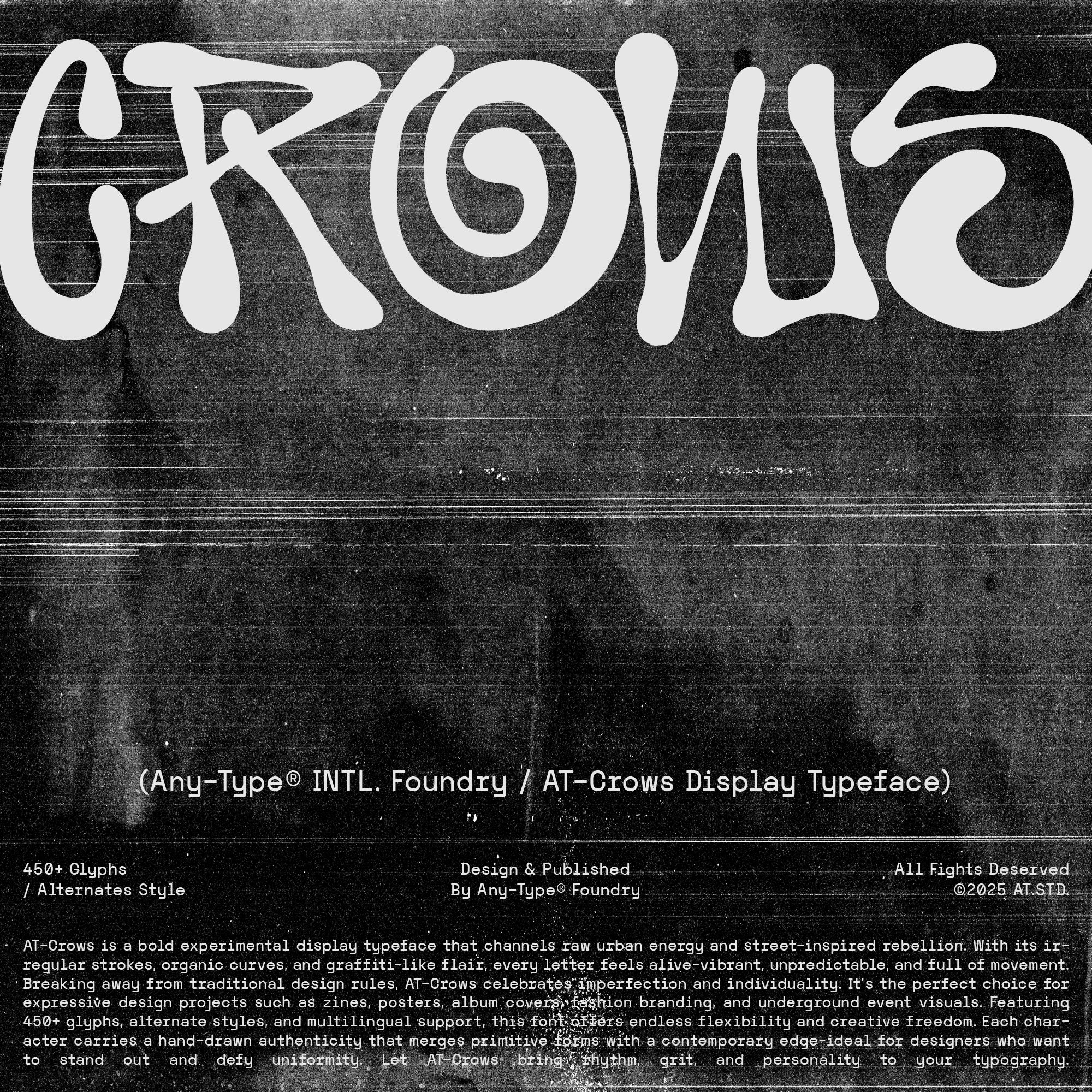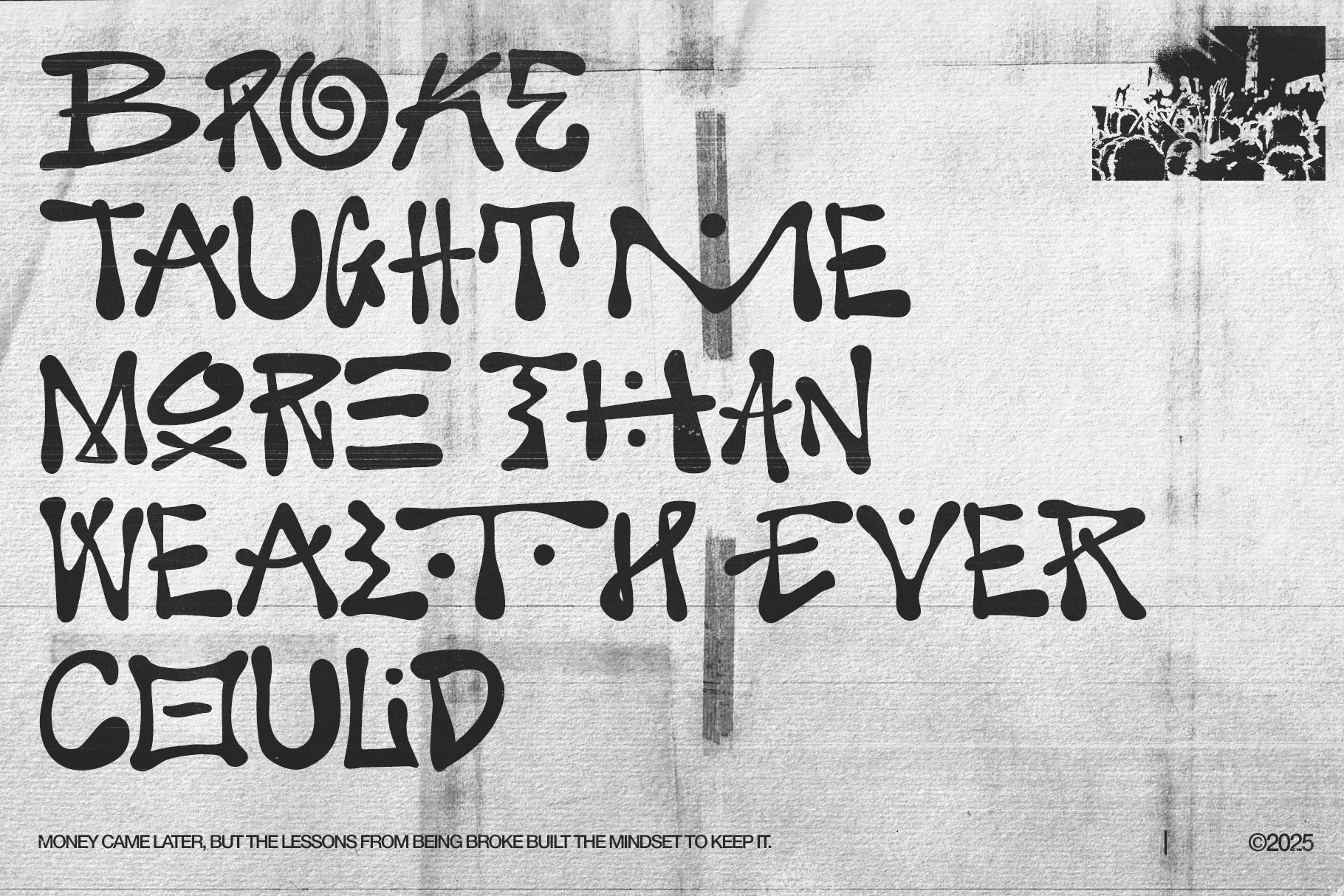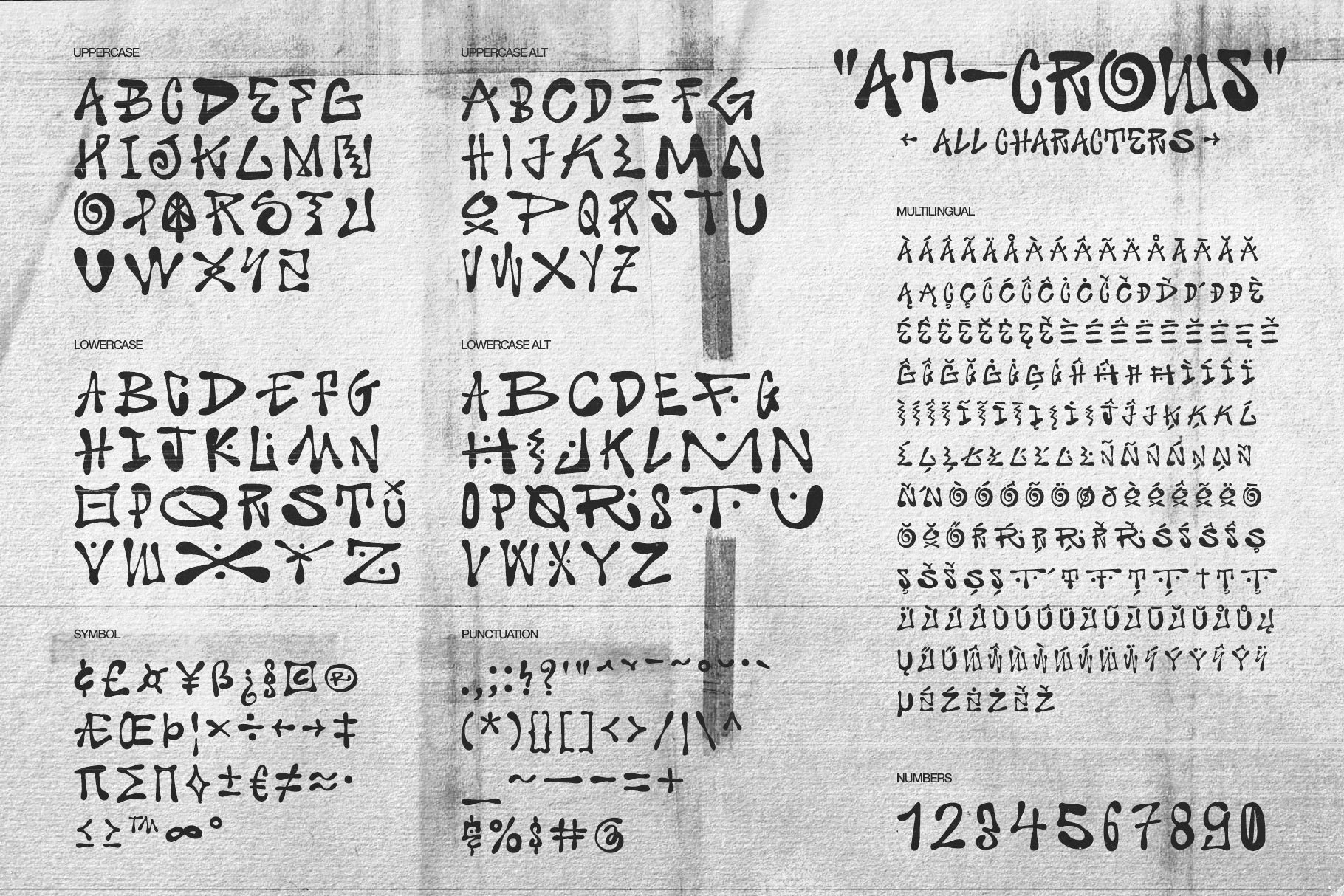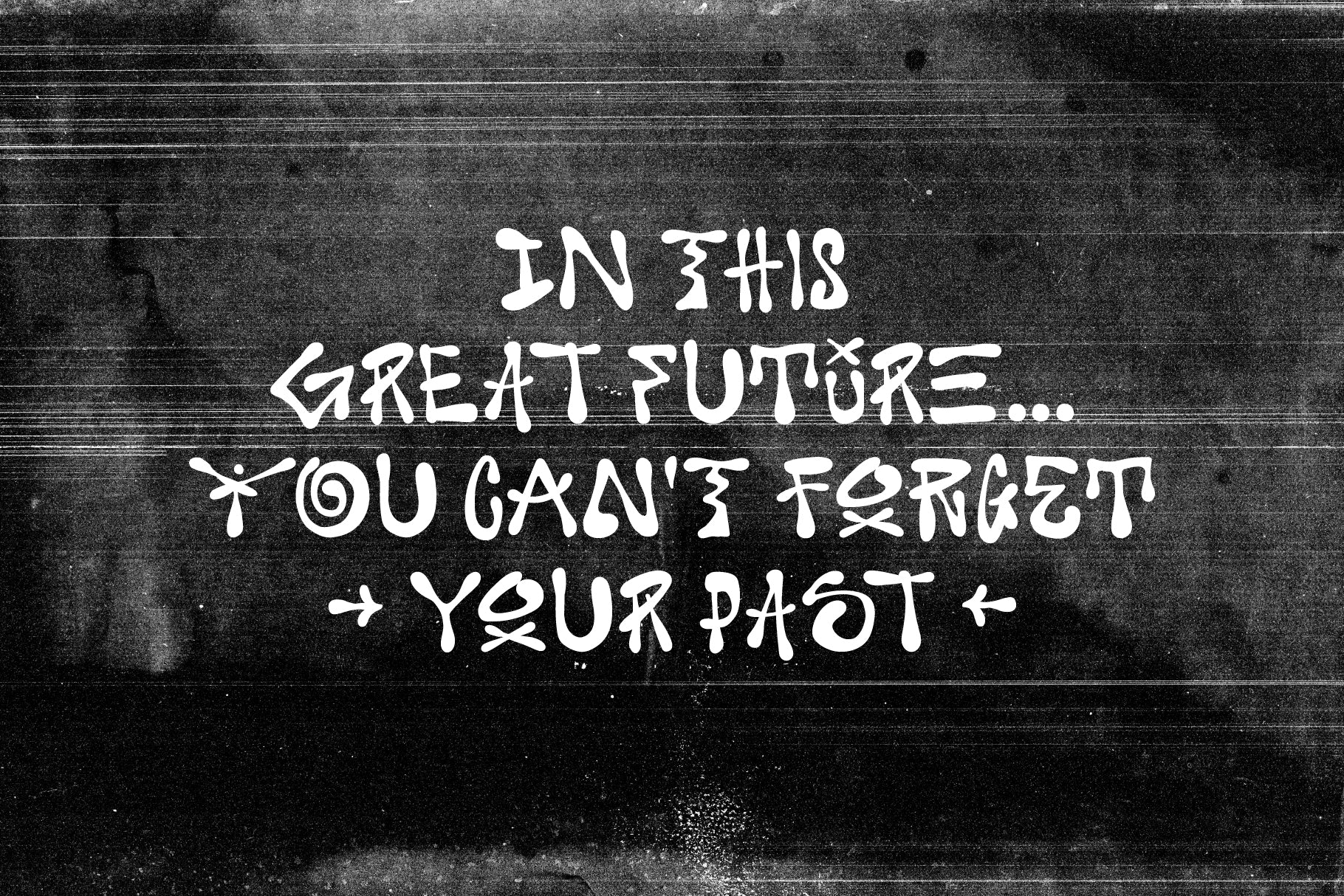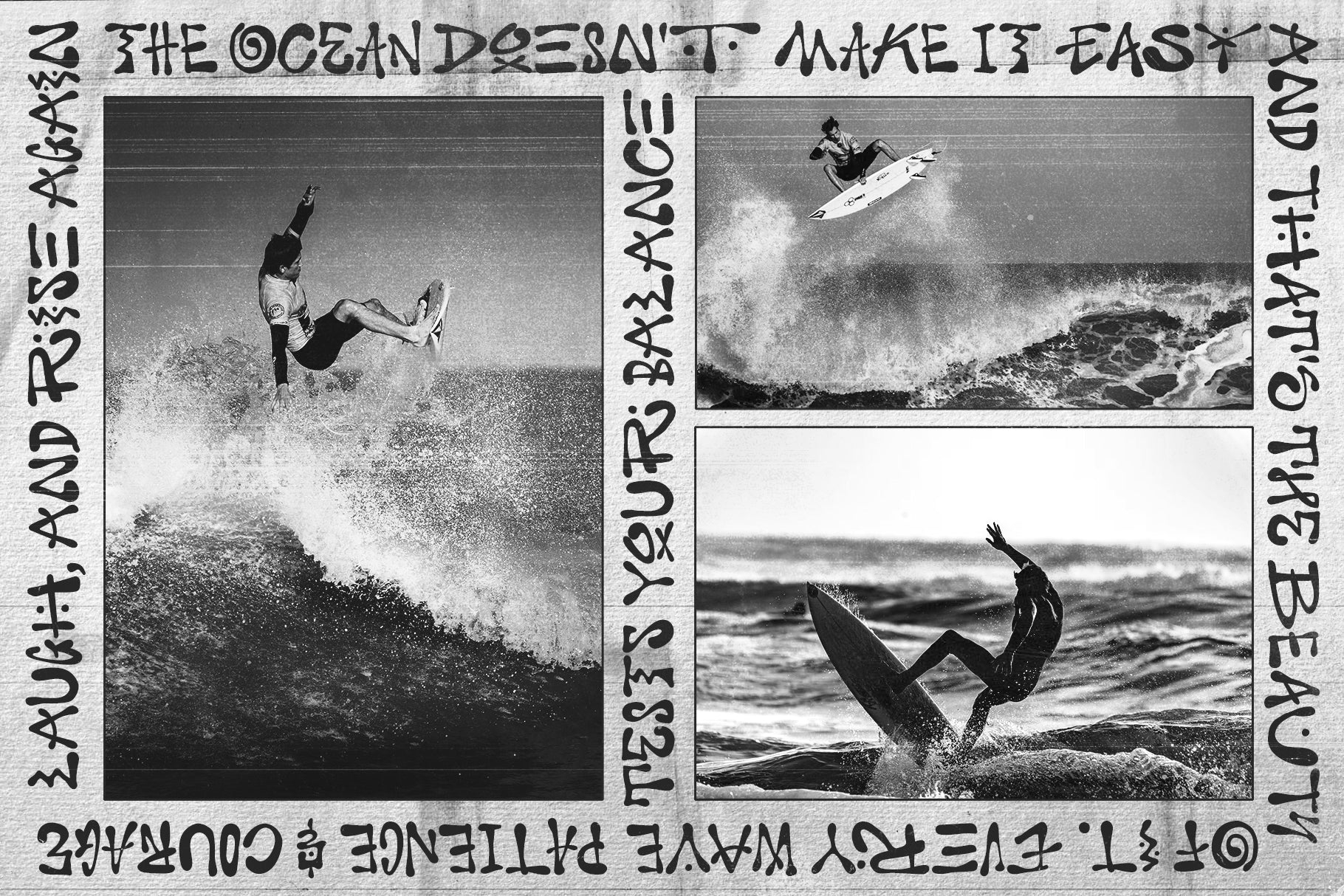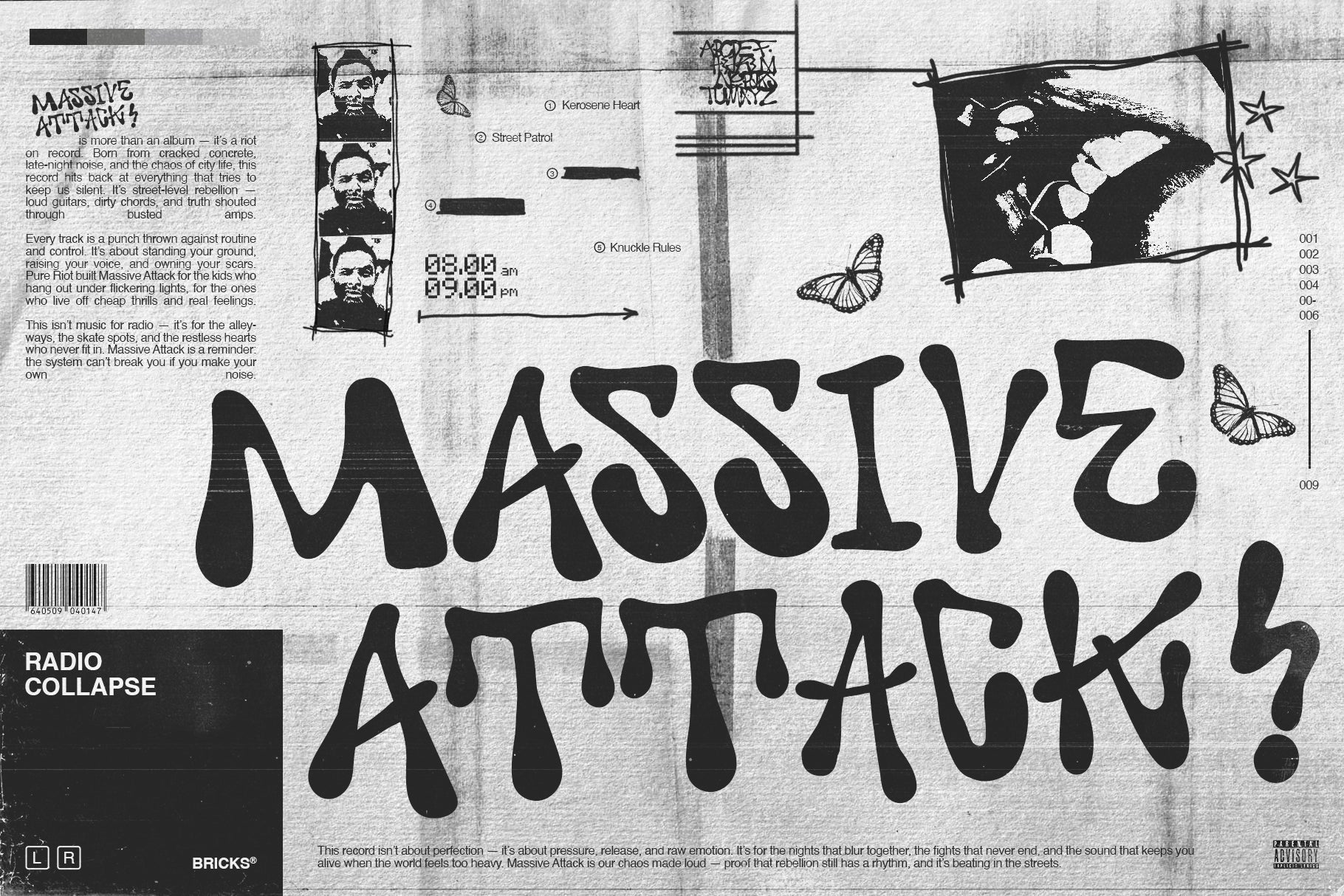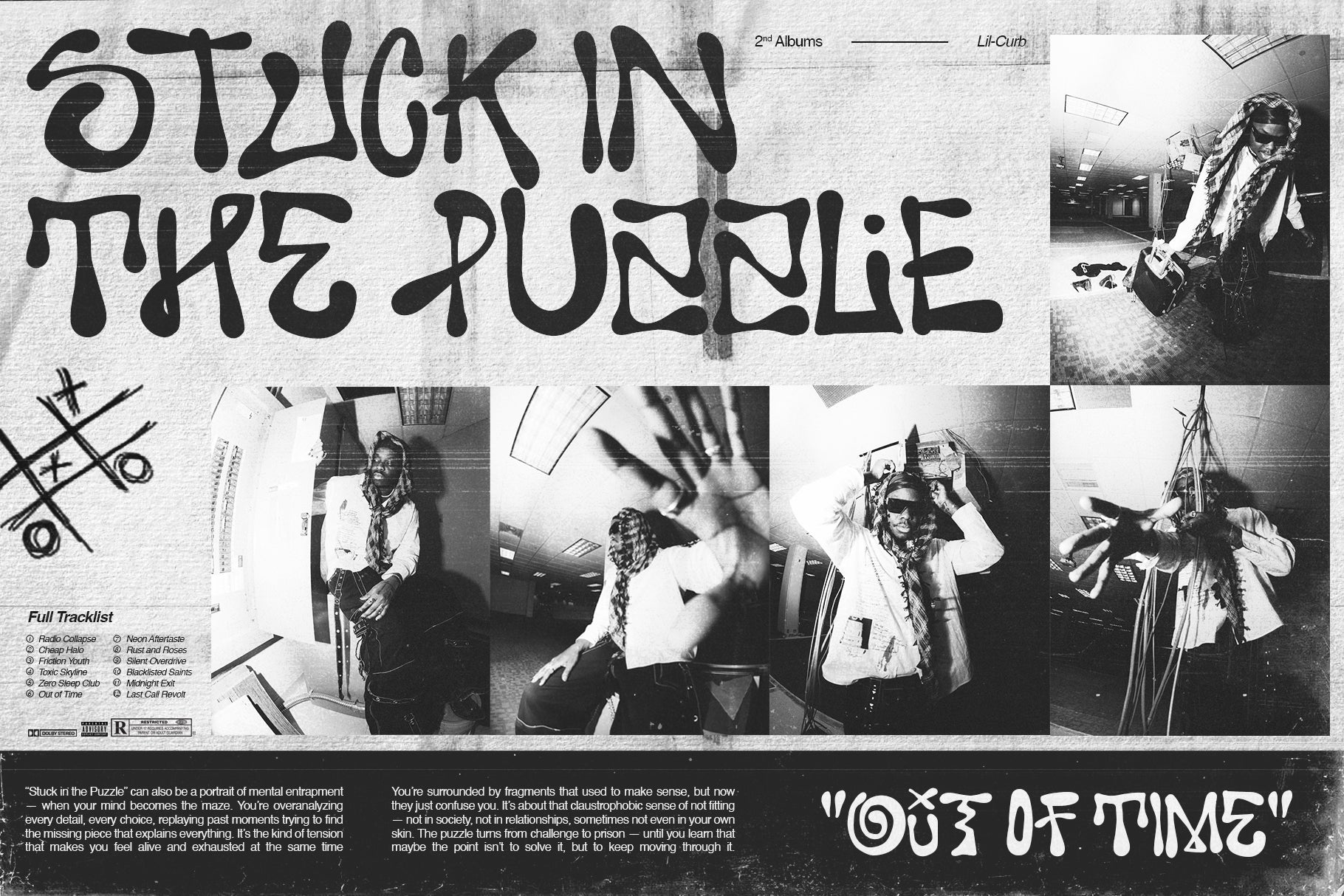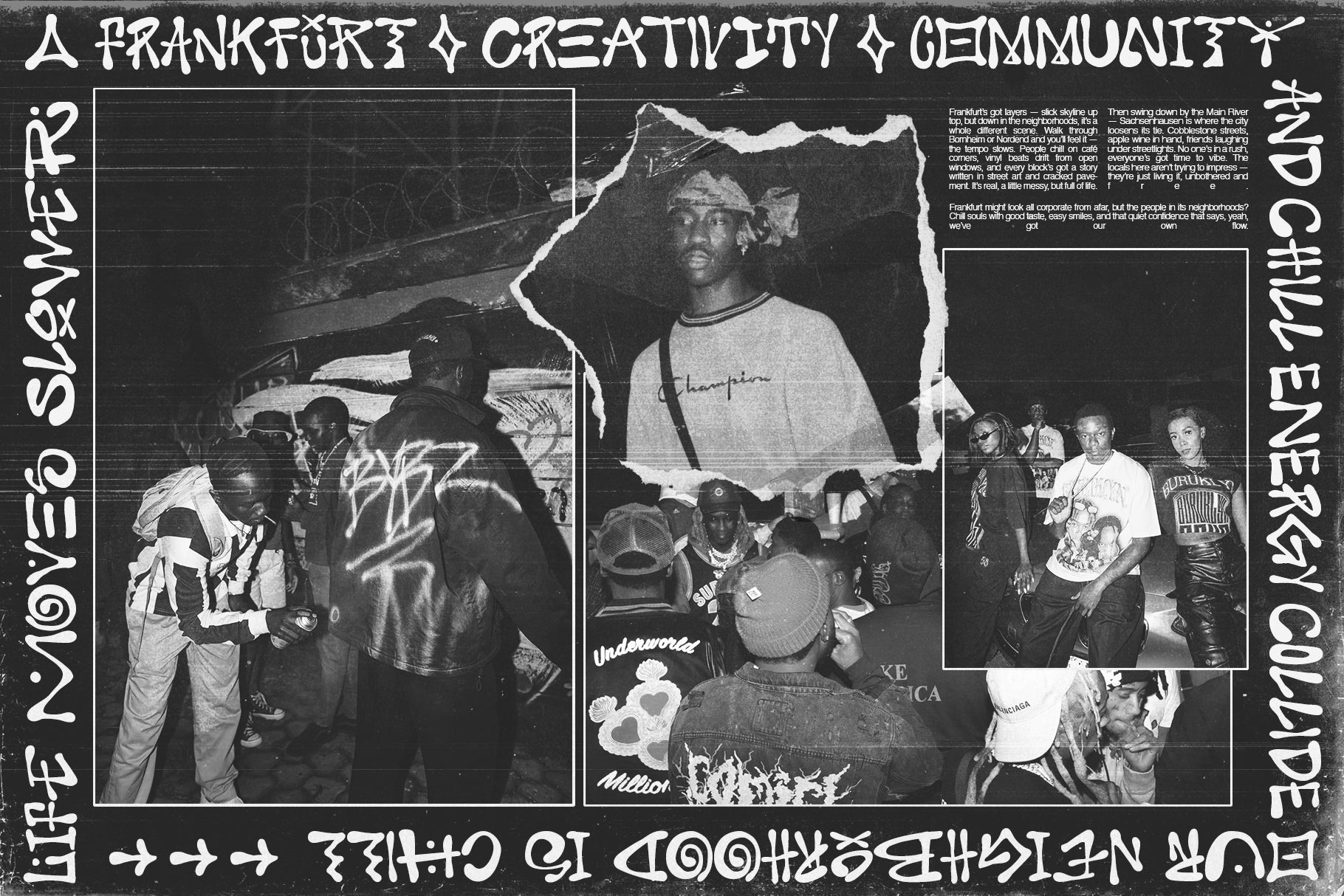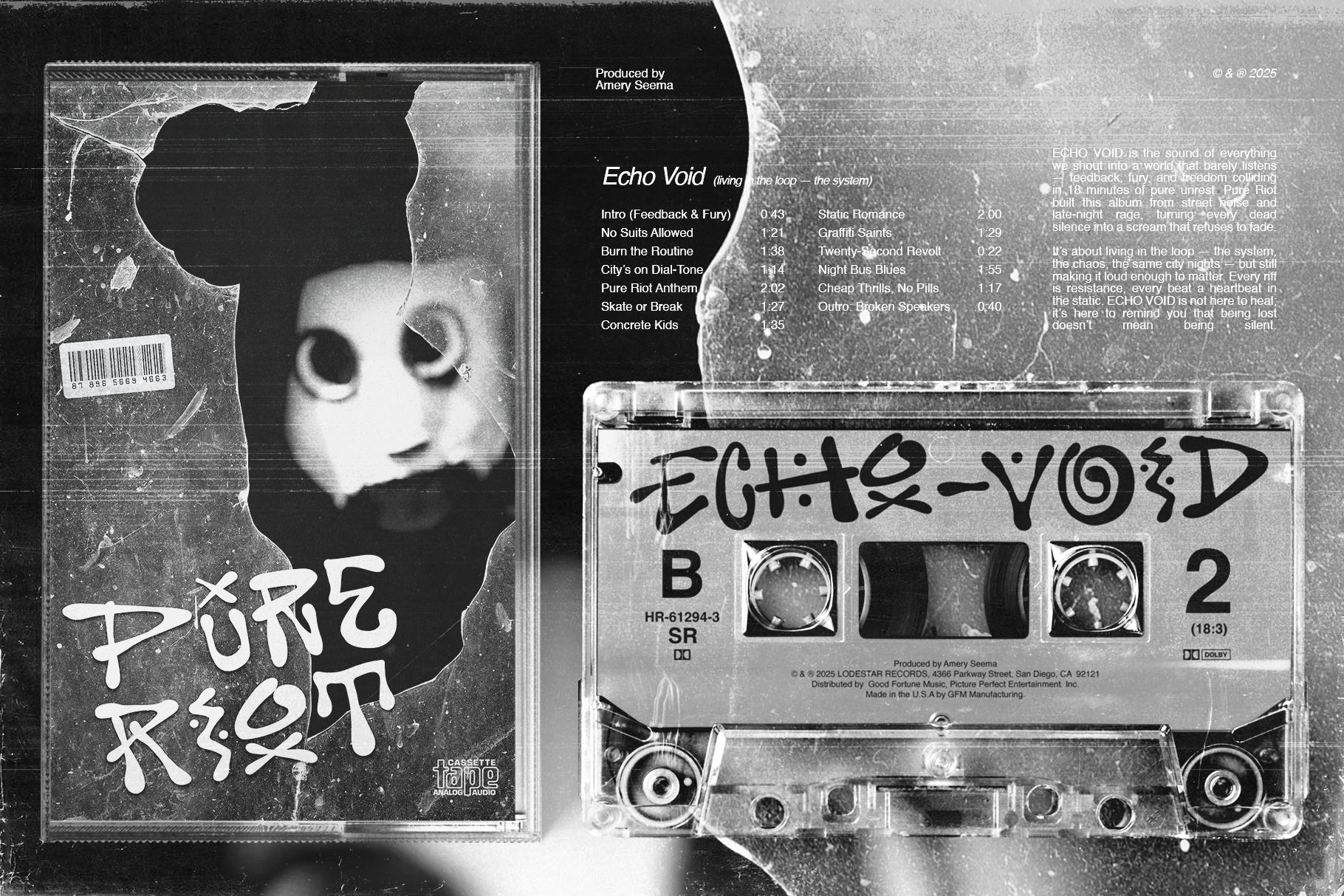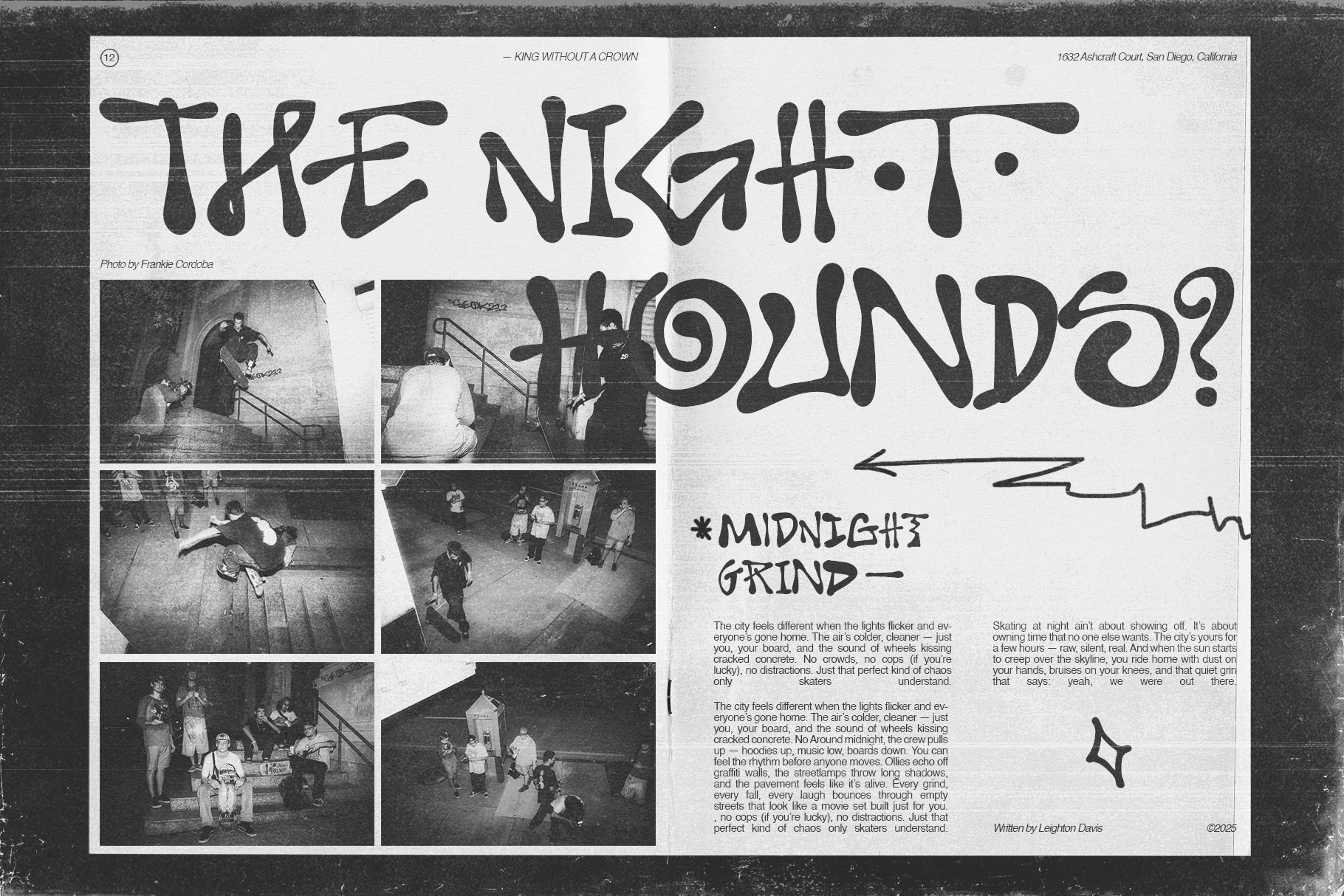
Crows: Urban Energy in Typeface Form
Crows: Urban Energy in Typeface Form is a display font featuring over 450 glyphs and multiple alternates, characterized by irregular strokes and organic curves inspired by street art. This typeface offers a bold, expressive design suitable for various creative projects, emphasizing a hand-drawn authenticity and contemporary edge.
Any-Type® Foundry